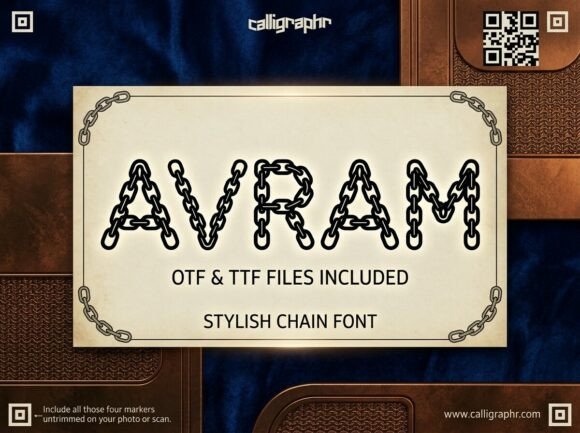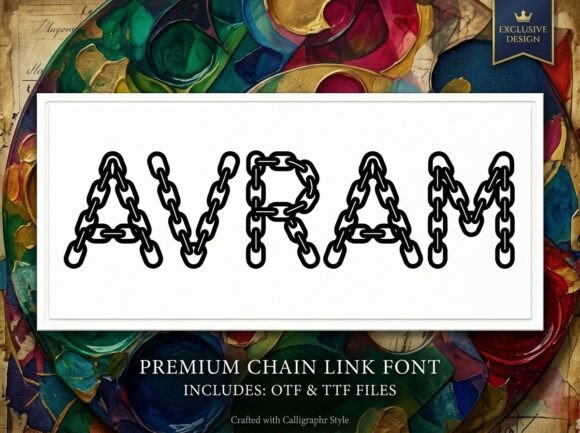
Unlocking the Power of Avram Font: A Design Game-Changer
Have you ever stumbled upon a font that instantly sparks a creative idea? For designers, that moment of inspiration can be a game-changer. For me, it was when I discovered the Avram Font – a high-strength display typeface that exudes an industrial-and-impenetrable soul. Its unique construction from hand-drawn chain links seamlessly blends vintage hardware aesthetics with modern urban branding.
Avram Font is more than just a stylish typography choice – it’s a versatile tool that can elevate any design project. With its medium structural weight and tough personality, it’s the perfect fit for independent hardware store identities, boutique gym logos, motorcycle club branding, and high-impact social media headers. Whether you’re a seasoned designer or just starting out, incorporating Avram Font into your work can add an extra layer of depth and sophistication.
Avram Font Key Features
- Unique Characteristics: Avram Font features a unique blend of modern and vintage elements, making it perfect for a wide range of design projects, from elegant invitations to bold advertising campaigns.
Avram Font Review
I recently had the chance to work with Avram Font, and I must say it’s a unique and intriguing typeface. Here are some of my observations:
- The Avram Font has a distinctive, modern aesthetic that’s sure to grab attention. Its bold lines and geometric shapes make it perfect for titles and headings.
- The font is highly customizable, with a wide range of weights and styles to choose from. This makes it versatile and suitable for various design projects.
- The Avram Font is also highly legible, even at smaller sizes. This is a must-have for any font, and Avram delivers.
- The Avram Font may be too bold for some designs. Its strong lines can overpower supporting text, making it less suitable for body copy.
- The font’s geometric shape can make it difficult to read in certain contexts, such as at very small sizes or in situations where the text is densely packed.
Overall, the Avram Font is a solid choice for designers who want a modern, eye-catching typeface. While it may have some limitations, its unique aesthetic and customization options make it a valuable addition to any design arsenal.
Tips for Getting the Most Out of Avram Font
For optimal results, use Avram Font in combination with bold, italics, and underlining to create visually appealing text effects.
Experiment with different font sizes and colors to create a cohesive design aesthetic.
Use Avram Font to create a consistent brand identity across all your designs.
Avram Font is ideal for:
Creating professional-looking business cards and letterheads.
Designing eye-catching posters and flyers.
Developing a consistent brand identity across all marketing materials.
Alternatives to Avram Font for Designers
Montserrat Font is a modern sans-serif typeface designed by Julieta Ulanovsky. It is ideal for use in digital media, especially in headings and titles due to its clean and geometric structure. Montserrat Font is a good alternative to Avram Font as it offers a similar urban feel, but with a more modern and sleek appearance.
2. Inter Font
Inter Font is a sans-serif typeface designed by Rasmus Andersson. It is highly legible and suitable for use in a wide range of applications, including body text and headings. Inter Font is a good choice for designers who want a clean and minimalist look, similar to Avram Font, but with a more neutral and versatile feel.